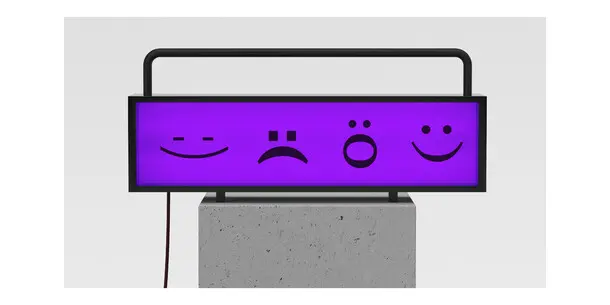
Exploring typography's emotional influence: A global look.
In the world of design and marketing, every detail matters. Color, messaging, and layout are all essential, but did you know typeface choice alone can boost positive consumer response by up to 13%?
Since 2021, we have been studying the emotional power of typefaces, and how they can influence perceptions and even shape brand identities. In this webinar, we’ll delve into the science and cultural contexts behind why certain typefaces resonate, the nuances across certain regions and languages, and how you can bring it all together to better leverage type in your work